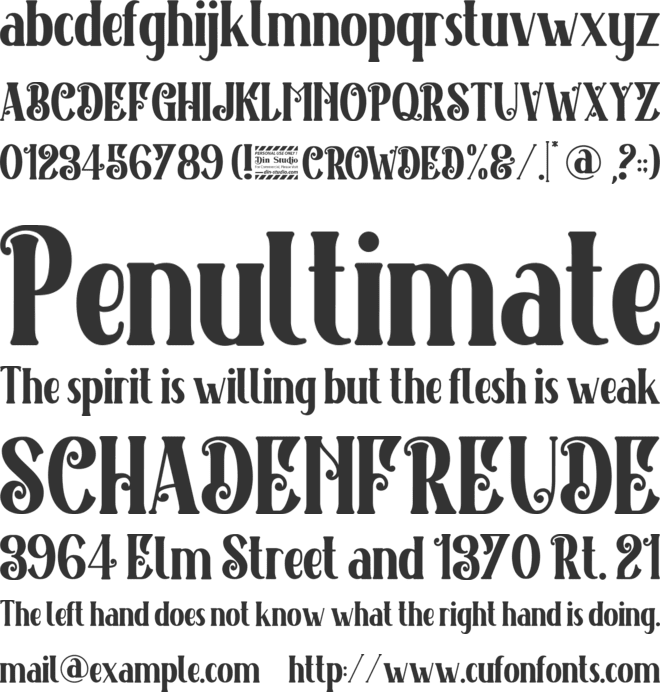
Product Description :
Crowded rounded vintage font. It was created by our talented artist with a full passion for vintage display. The font perfectly used on your website, media social, printed product, quotes, mugs, logos, poster, branding, t-shirt, and so much more.
Features include:
• Alternates
• Ligatures
• Ornaments
• Multilingual Supports
• Numerals and Punctuations